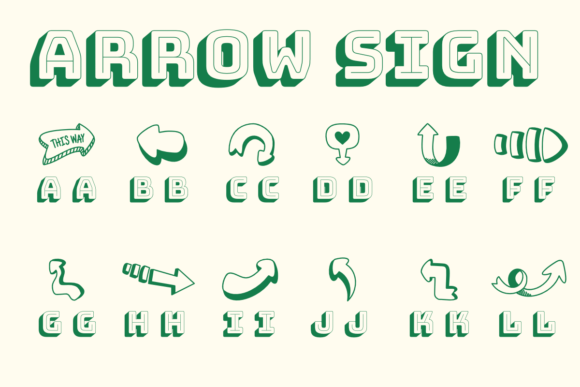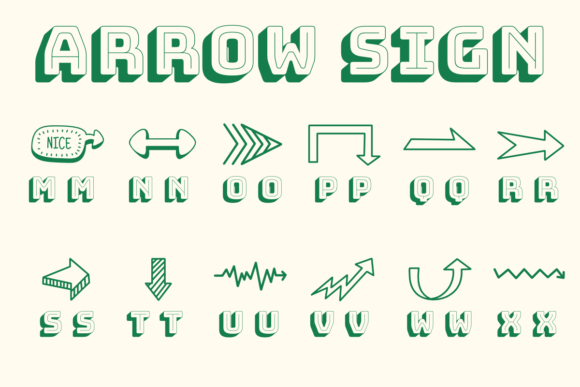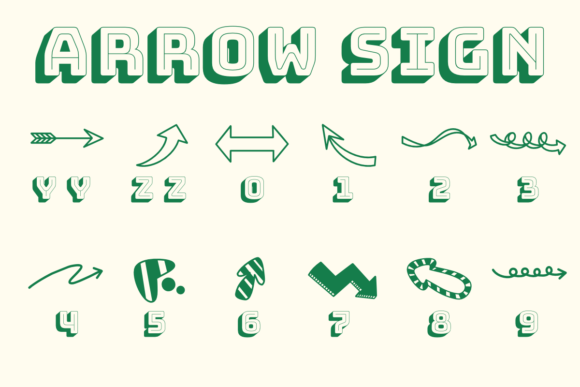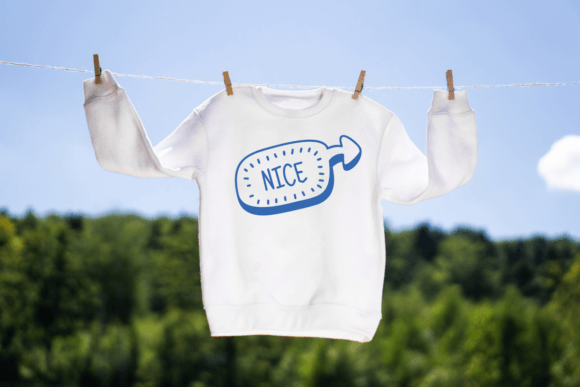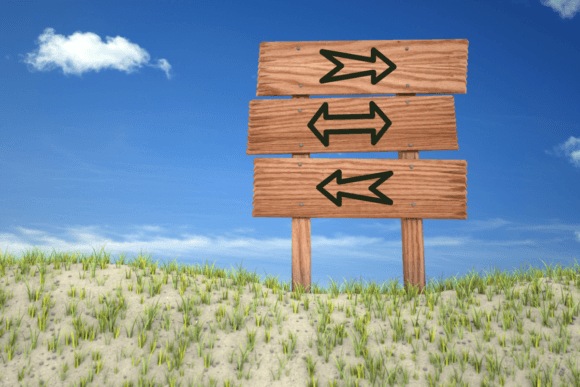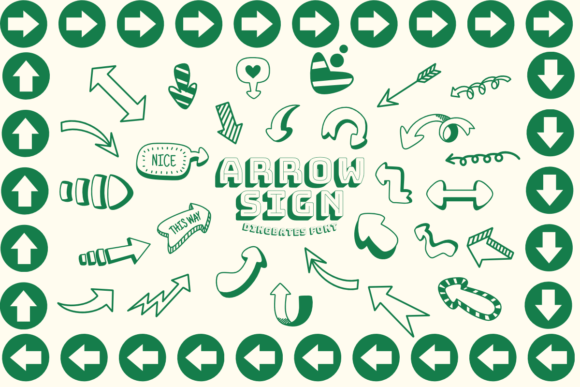
Arrow Sign Font: Elevate Your Creative Projects with a Sketched Twist
Are you a designer or crafter looking for a unique font to add a personal touch to your creative projects? Look no further than the Arrow Sign Font, a dingbats font with a charming sketched theme. This versatile font is perfect for a wide range of applications, from wedding invitations and DIY crafts to decorations, logos, and more.
What is Arrow Sign Font?
Arrow Sign Font is a dingbats font that features a beautiful, hand-sketched design. The font is characterized by its delicate lines, whimsical curves, and charming imperfections, giving it a distinctly handmade feel. The sketched theme of the font makes it perfect for designers and crafters who want to add a touch of personality to their work.
Uses for Arrow Sign Font
The Arrow Sign Font is incredibly versatile and can be used for a wide range of creative projects. Here are just a few ideas to get you started:
• Wedding Invitations: Add a touch of elegance and whimsy to your wedding invitations with the Arrow Sign Font. Use it to create beautiful, hand-drawn designs that set the tone for your special day.
• DIY Crafts: The Arrow Sign Font is perfect for DIY crafters who want to add a personal touch to their projects. Use it to create custom signs, banners, and decorations for parties, events, and everyday use.
• Logos and Branding: The unique, hand-sketched design of the Arrow Sign Font makes it perfect for logos and branding. Use it to create a distinctive and memorable brand identity that sets you apart from the competition.
• Decorations: Add a touch of personality to your home or office with decorations featuring the Arrow Sign Font. Use it to create custom wall art, signs, and other decorative items that reflect your personal style.
Benefits of Using Arrow Sign Font
So why choose the Arrow Sign Font for your creative projects? Here are just a few benefits of using this versatile font:
• Unique Design: The Arrow Sign Font features a unique, hand-sketched design that sets it apart from more traditional fonts. Use it to add a touch of personality to your work and stand out from the crowd.
• Versatility: The Arrow Sign Font is incredibly versatile and can be used for a wide range of creative projects. Whether you’re designing wedding invitations or creating custom decorations, this font is sure to inspire.
Tips for Using Arrow Sign Font
Here are a few tips for using the Arrow Sign Font in your creative projects:
• Experiment with Different Sizes: The Arrow Sign Font looks great in a variety of sizes, from small and delicate to large and bold. Experiment with different sizes to find the one that works best for your project.
• Pair with Other Fonts: The Arrow Sign Font pairs well with a variety of other fonts, from simple sans serifs to elegant scripts. Experiment with different font combinations to find the one that works best for your project.
• Use for Headlines and Titles: The Arrow Sign Font is perfect for headlines and titles, where its unique design can really shine. Use it to create eye-catching headings that draw the reader in.
The Arrow Sign Font is a versatile and charming dingbats font with a sketched theme. Its unique design and ease of use make it perfect for a wide range of creative projects, from wedding invitations and DIY crafts to logos and decorations. Whether you’re a designer or crafter, the Arrow Sign Font is sure to inspire and elevate your work.